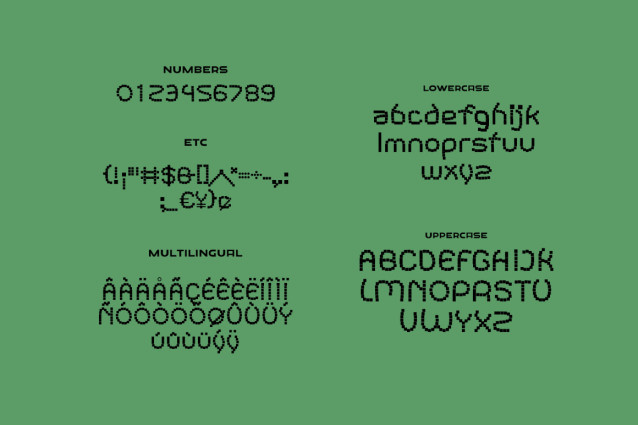
Roinert Squared Font
Roinert Squared Font is a cool pixel display font, perfect for retro game design themes. Use this captivating font for creating unique t-shirt designs, covers, headlines, posters, or anything that needs a retro accent.